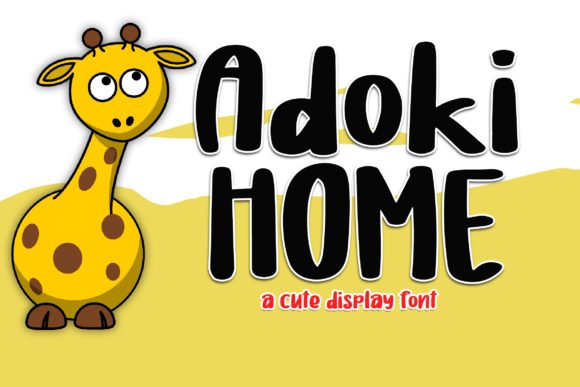
Unlocking Whimsy: The Joy of Adoki Home Font
Have you ever been working on a project and suddenly, a burst of creativity hits you? You’re flooded with ideas, and your imagination runs wild. This is exactly what happens when you work with the Adoki Home Font. This hand-drawn display font is a treasure trove of whimsy and fun, perfect for adding a playful touch to your designs.
Whether you’re working on a school project, creating art for children, or simply looking for a unique font to add some personality to your work, the Adoki Home Font is a valuable asset. Its cute and quirky design makes it an excellent choice for designers who want to bring a smile to their audience’s faces.
Adoki Home Font Key Features
- Unique Characteristics: Adoki Home Font features a modern, elegant design with rounded edges and subtle flair, making it perfect for use in home decor, furniture, and interior design contexts
- Font Pairing: Adoki Home Font is designed to pair well with other sans-serif fonts, creating a clean and modern typography look
Adoki Home Font Review
Overall, I found Adoki Home Font to be a solid addition to any design project, but it’s not without its quirks. Here are some of the things that work well:
- ✨ Beautiful, hand-drawn aesthetic that adds a touch of warmth and personality to any design.
- ✨ Excellent for use in branding and packaging, where a more human and approachable feel is desired.
- ✨ Well-suited for use in body text, where readability is key.
- ⚠️ Limited font weights, which can make it difficult to use in situations where a bold or italic version is needed.
- ⚠️ Some letters may be difficult to read at smaller font sizes, particularly the lowercase ‘a’ and ‘g’.
- ⚠️ May not be suitable for use in situations where a highly legible font is required, such as in instructional materials or financial documents.
Overall, I would recommend Adoki Home Font for use in situations where a warm and approachable feel is desired, but may not be the best choice for more formal or technical applications.
Adoki Home Font is a versatile font that can be used for a variety of purposes, including:
– Creating a warm and inviting atmosphere for home decor designs.
– Adding a touch of elegance to wedding invitations and stationery.
– Designing a logo or branding for a home-based business.
– Creating a cozy and welcoming atmosphere for restaurant or cafe menus.